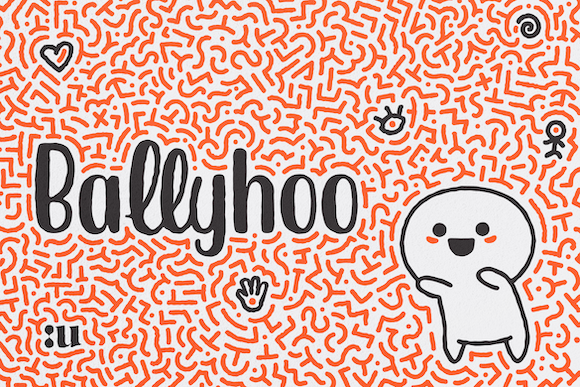
Ballyhoo Font: Unleash Your Creativity with this Stunning Script
Ballyhoo is a stunning and playful script with a cool vibe that’s taking the design world by storm. This beautiful font is perfect for designers and crafters looking to add a touch of whimsy to their projects. Get inspired by its unique style and discover how Ballyhoo can elevate your designs to the next level.
The Story Behind Ballyhoo
Ballyhoo is a script font that exudes a sense of playfulness and fun. Its cool vibe is reminiscent of a summer carnival, evoking feelings of excitement and joy. The font’s design is characterized by its flowing curves, swirling tails, and elegant connections. Each letter is carefully crafted to create a sense of movement and energy, making Ballyhoo perfect for designs that require a touch of whimsy.
Key Features of Ballyhoo Font
- Playful Script Style: Ballyhoo boasts a unique script style that’s both elegant and playful. Its flowing curves and swirling tails make it perfect for designs that require a touch of personality.
- Cool Vibe: The font’s cool vibe is perfect for designs that require a laid-back, summer feel. Whether you’re working on a branding project, a poster, or a social media graphic, Ballyhoo’s cool vibe is sure to impress.
- Whimsical Style: Ballyhoo’s whimsical style is perfect for designers and crafters who want to add a touch of magic to their projects. The font’s unique design makes it perfect for creative projects, such as illustrations, comics, and cartoons.
- High-Quality Design: Ballyhoo is designed with high-quality craftsmanship in mind. Each letter is carefully crafted to ensure that the font is both legible and visually appealing.
Uses of Ballyhoo Font
Ballyhoo is a versatile font that can be used in a variety of design projects, including:
- Branding and Logo Design: Ballyhoo’s unique style makes it perfect for branding and logo design projects. Its playful script style and cool vibe make it perfect for businesses that want to stand out from the crowd.
- Posters and Flyers: Ballyhoo is perfect for posters and flyers that require a touch of whimsy. Its flowing curves and swirling tails make it perfect for eye-catching designs.
- Social Media Graphics: Ballyhoo’s cool vibe makes it perfect for social media graphics, such as Instagram posts, Facebook graphics, and Twitter headers.
- Crafting and DIY Projects: Ballyhoo is perfect for crafters and DIY enthusiasts who want to add a touch of personality to their projects. Its whimsical style makes it perfect for handmade cards, scrapbooking, and other craft projects.
Tips for Using Ballyhoo Font
Here are some tips for using Ballyhoo font in your design projects:
- Pair it with a bold font: Ballyhoo’s playful script style pairs perfectly with bold fonts. Try pairing it with a sans-serif font for a striking contrast.
- Use it for headlines: Ballyhoo’s unique style makes it perfect for headlines and titles. Use it to add a touch of personality to your designs.
- Experiment with colors: Ballyhoo’s cool vibe makes it perfect for bright and bold colors. Experiment with different color combinations to find the perfect look for your design.
Ballyhoo font is a stunning and playful script with a cool vibe that’s perfect for designers and crafters looking to add a touch of whimsy to their projects. Its unique style, high-quality design, and versatility make it perfect for a variety of design projects, from branding and logo design to social media graphics and crafting projects. Get inspired by Ballyhoo’s whimsical style and discover how it can elevate your designs to the next level.